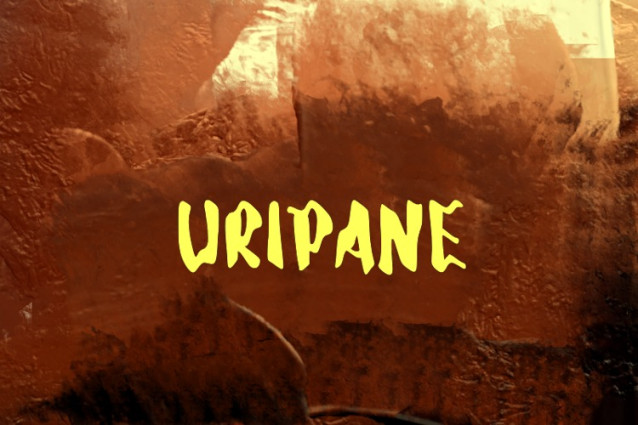
Uripane Font
Uripane Font, It would be a perfect choice to design posters, affiches, logos, t-shirt and magazine prints, eye-pleasing typographic designs and more.